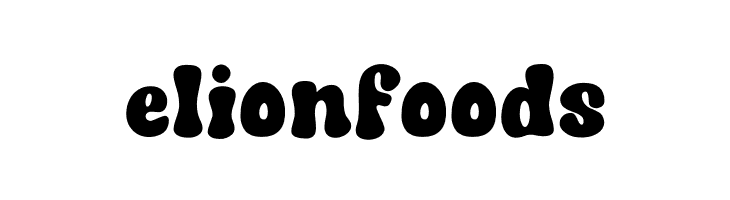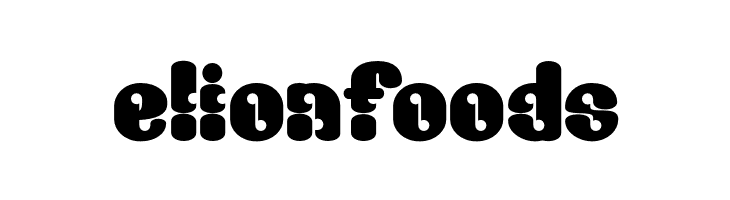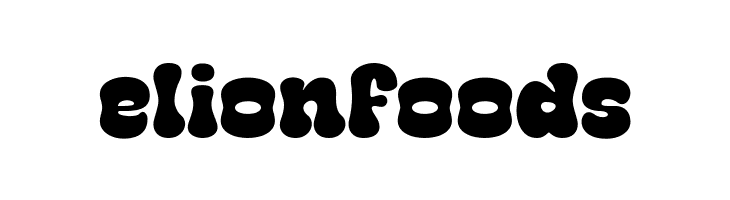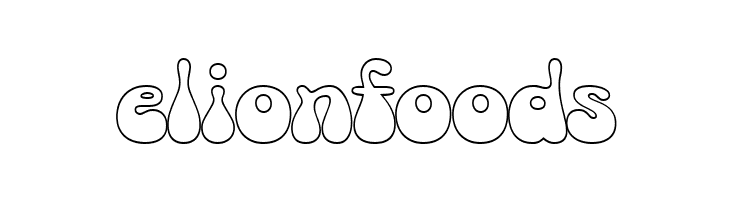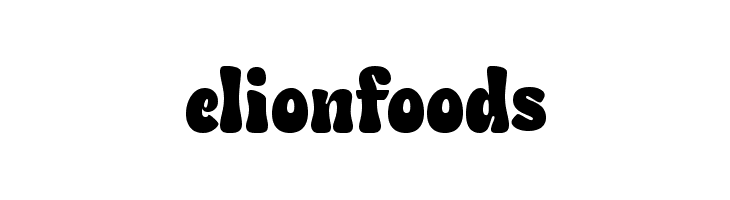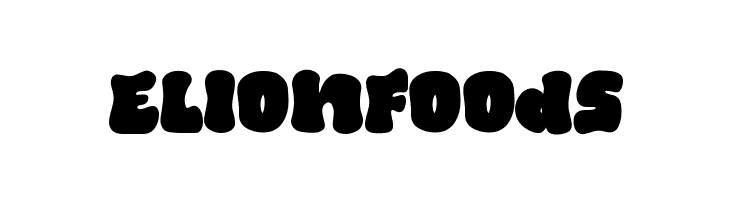
( Fonts by Rian Dryana )
A bold, retro font with rounded, bubbly letterforms and a playful, groovy style.
( Fonts by Jimtype Studio )
A bold, playful font with rounded, bubbly characters and a whimsical style.
( Fonts by twinletter )
A bold, playful font with rounded edges and a bubbly appearance.
( Fonts by Faqih Fawaji )
A bold, playful font with rounded edges and a bubbly appearance.
( Fonts by fsuarez913 )
A bold, playful font with rounded, bubbly characters.
( Fonts by Prioritype Co )
A playful, bubbly outline font with a retro vibe.
( Fonts by Excellent Ritma Florendia )
A playful, bold font with rounded, bubbly characters perfect for whimsical designs.
( Fonts by Cory Oneill )
A playful, bold font with rounded, bubbly characters ideal for creative projects.
( Fonts by Rian Dryana )
A playful, bold font with rounded, bubbly characters perfect for creative projects.
( Fonts by Bearytype )
A bold, playful font with rounded, bubbly characters and a retro-modern vibe.